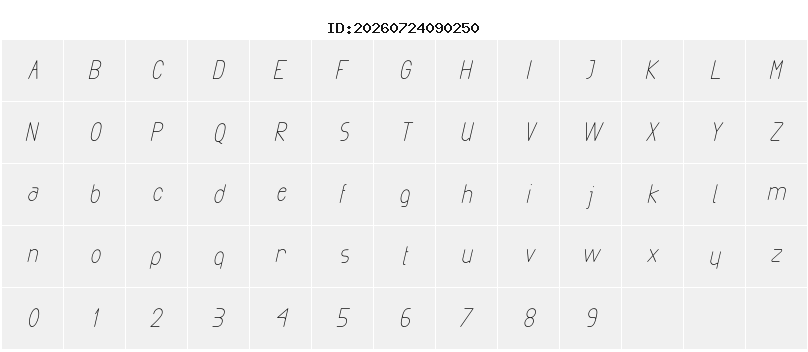
Exacta Preview
About Exacta.ttf
Exacta.ttf is a modern, elegant sans-serif font designed for ultimate readability and visual harmony. Perfect for branding, headlines, web design, and print materials.